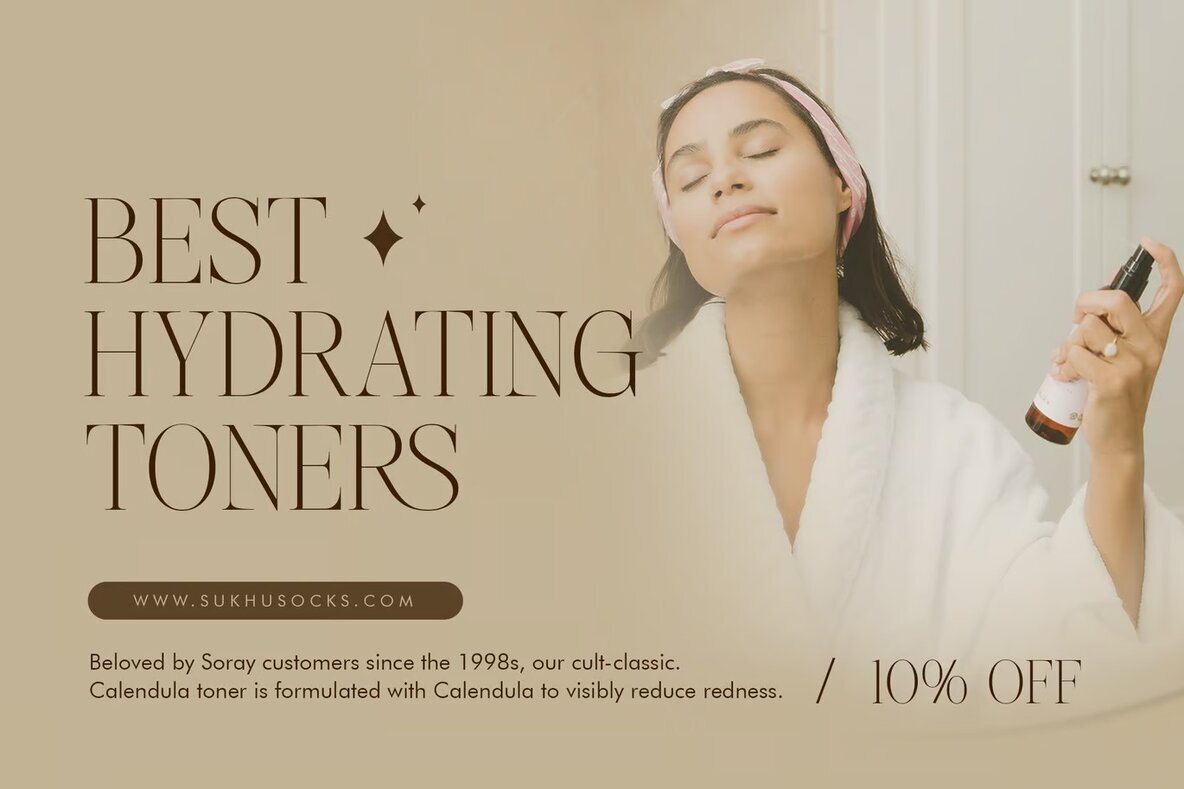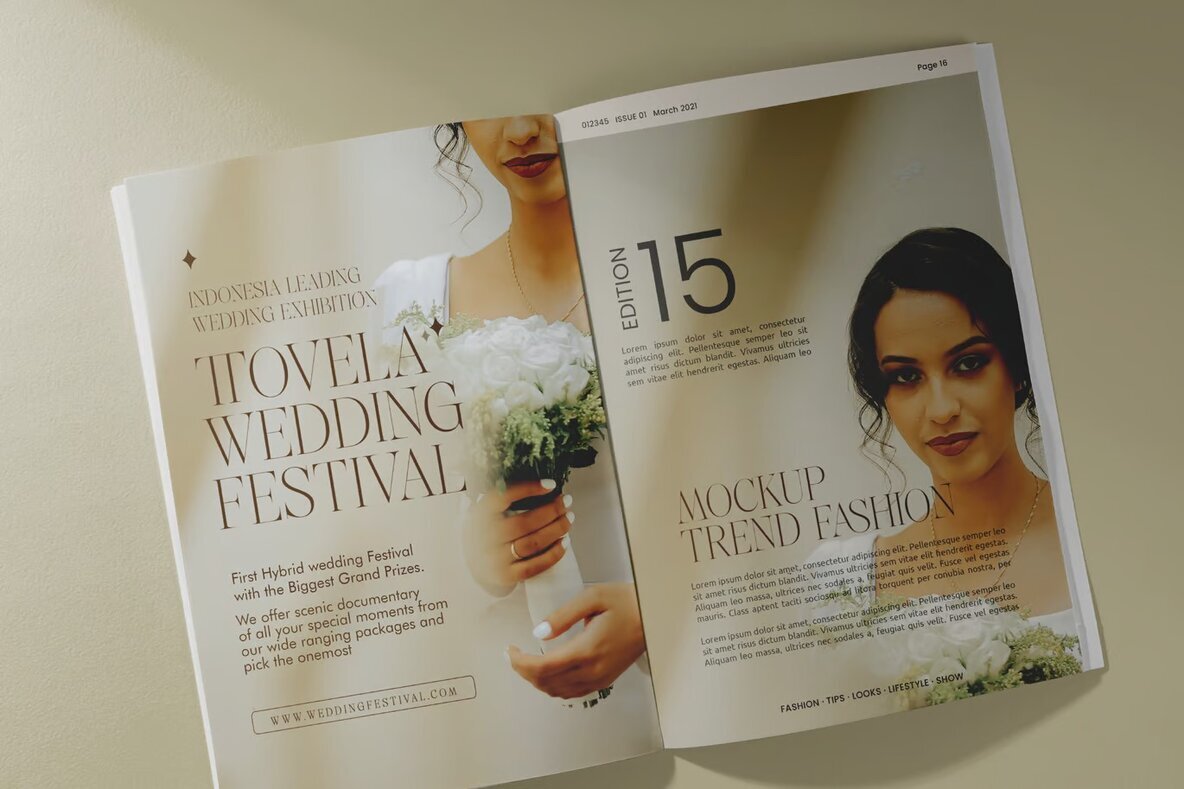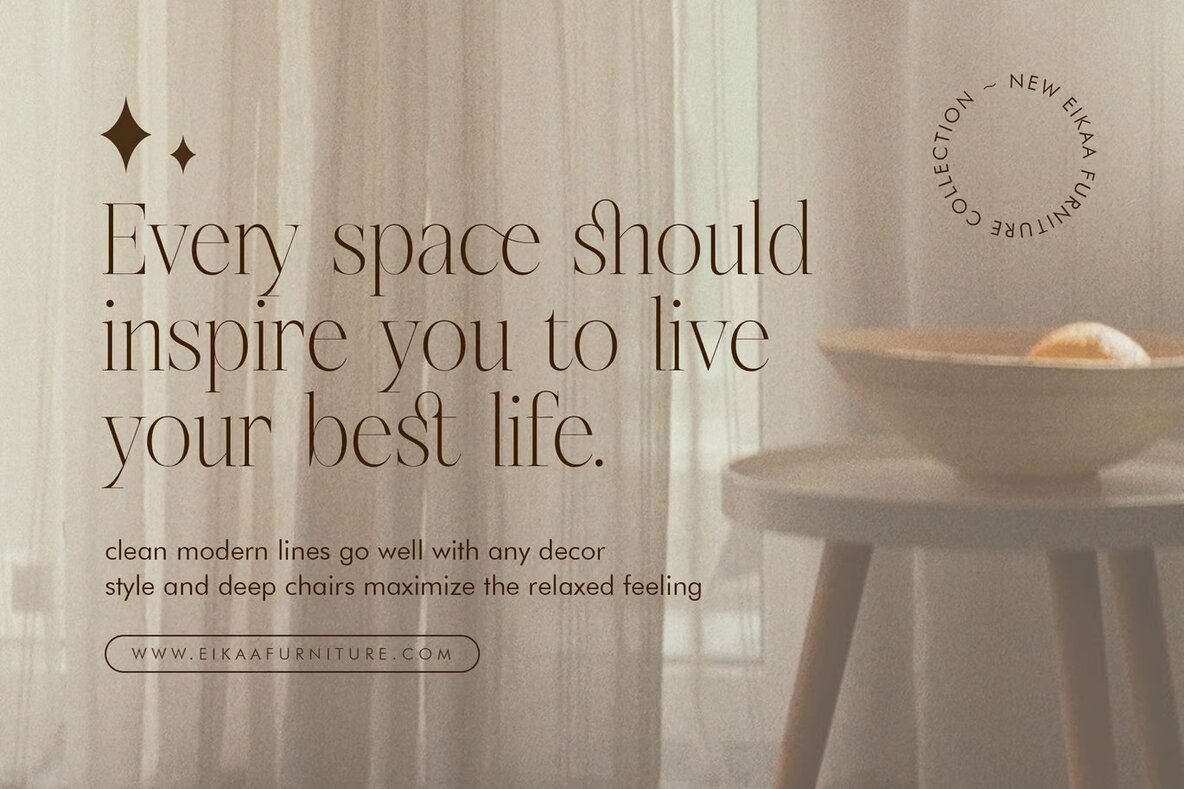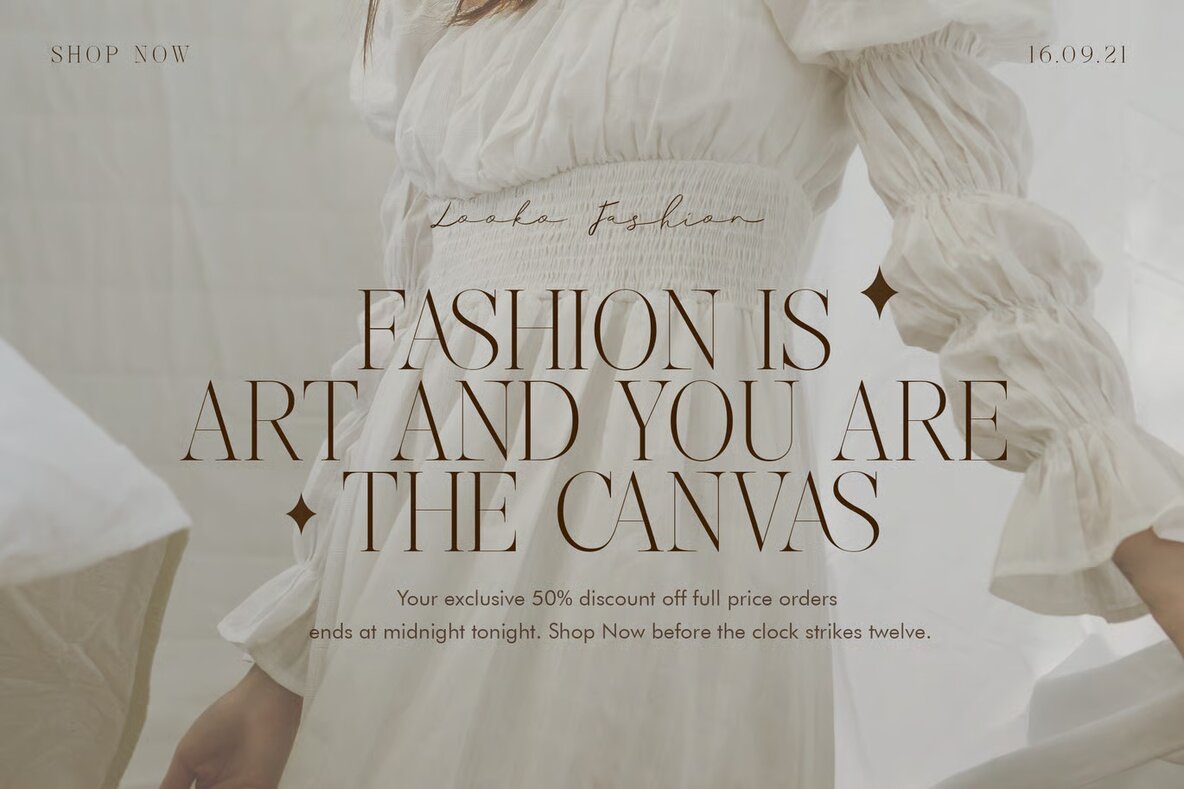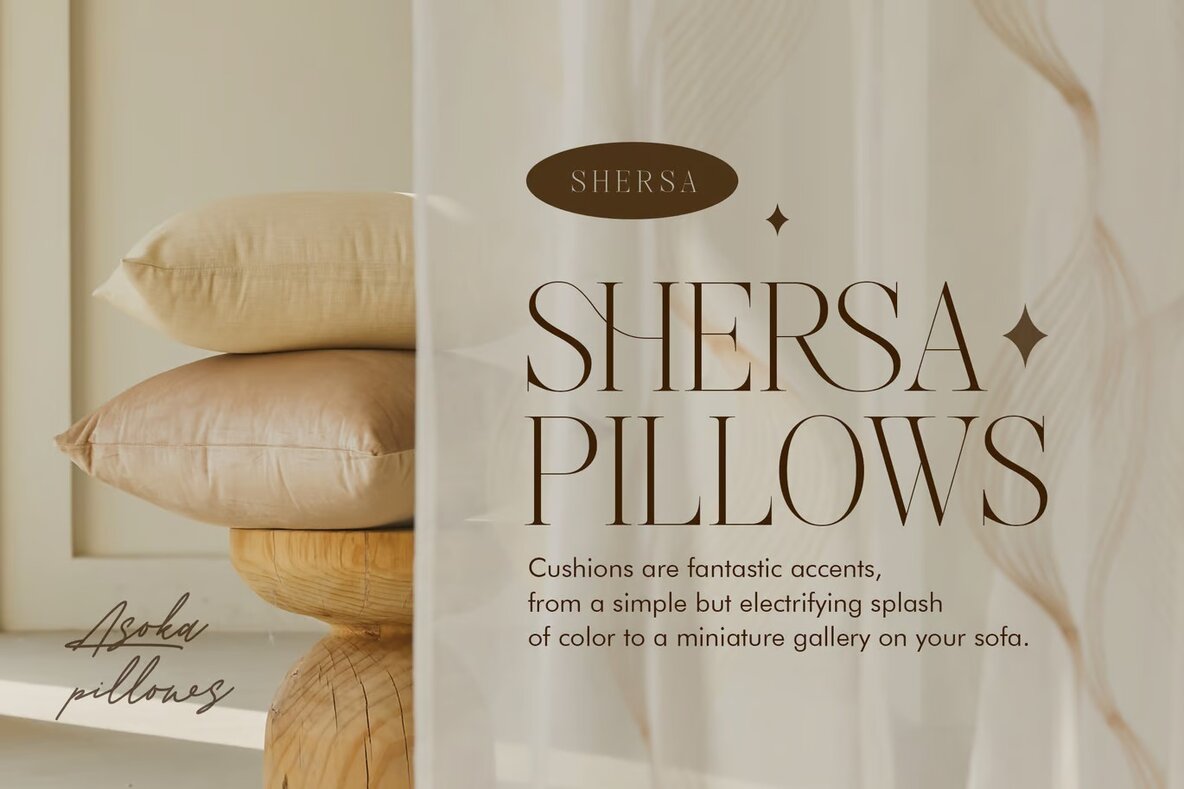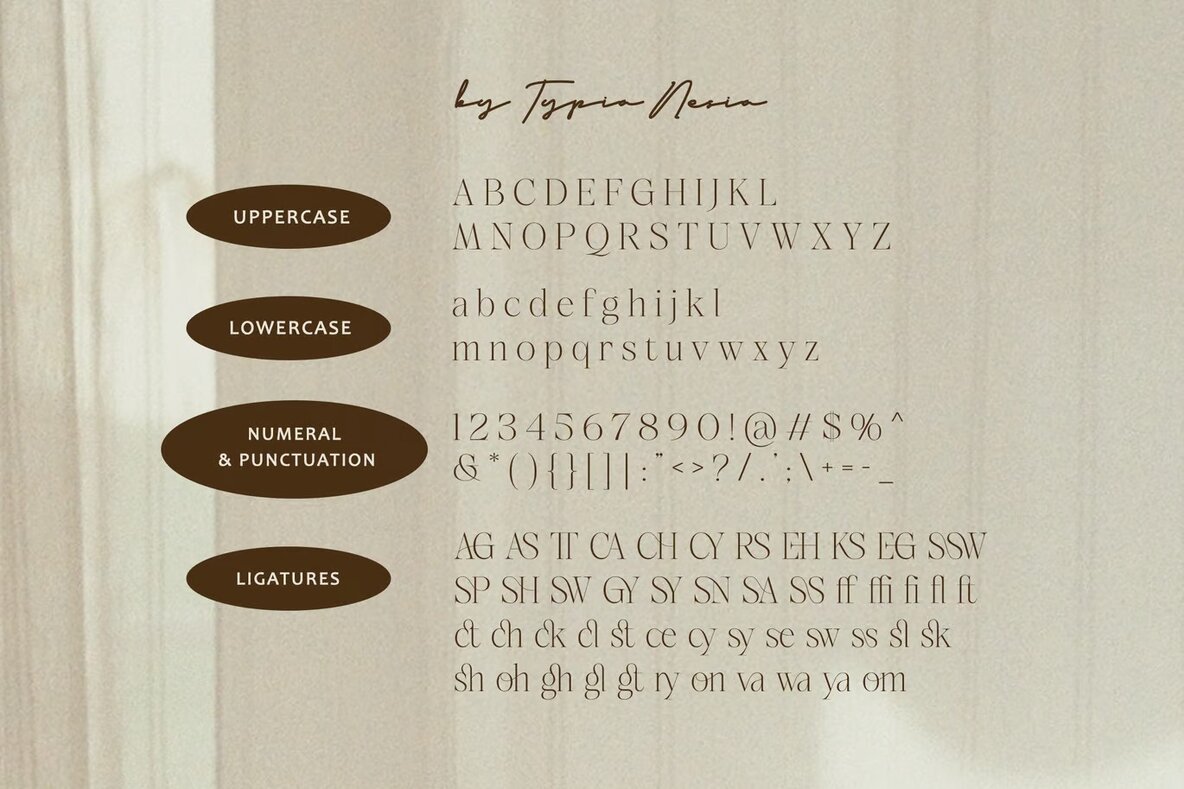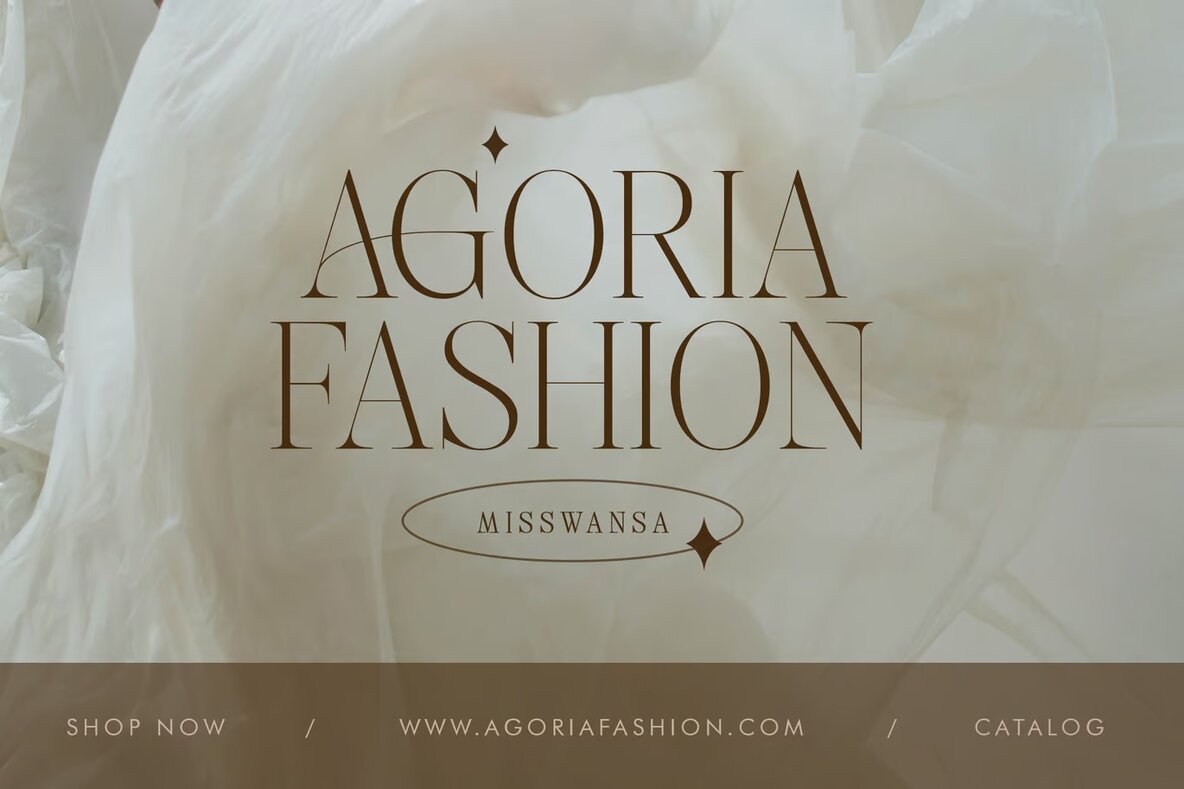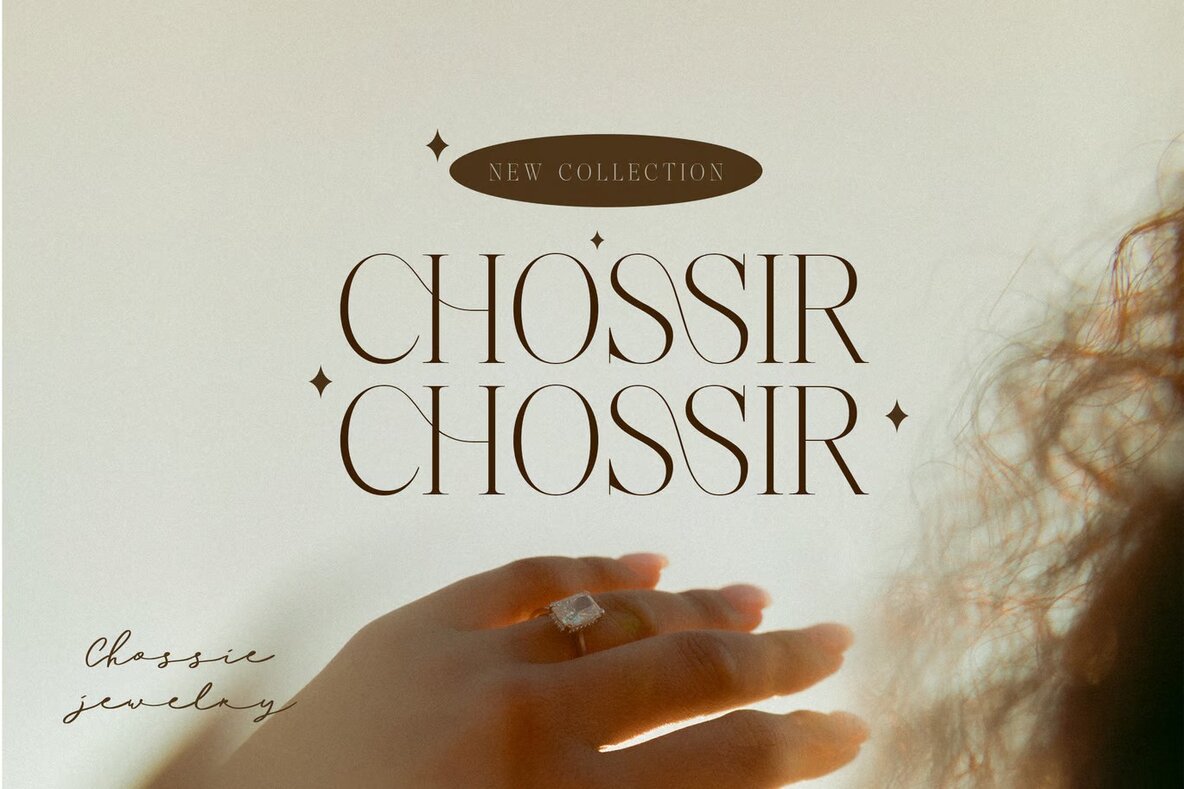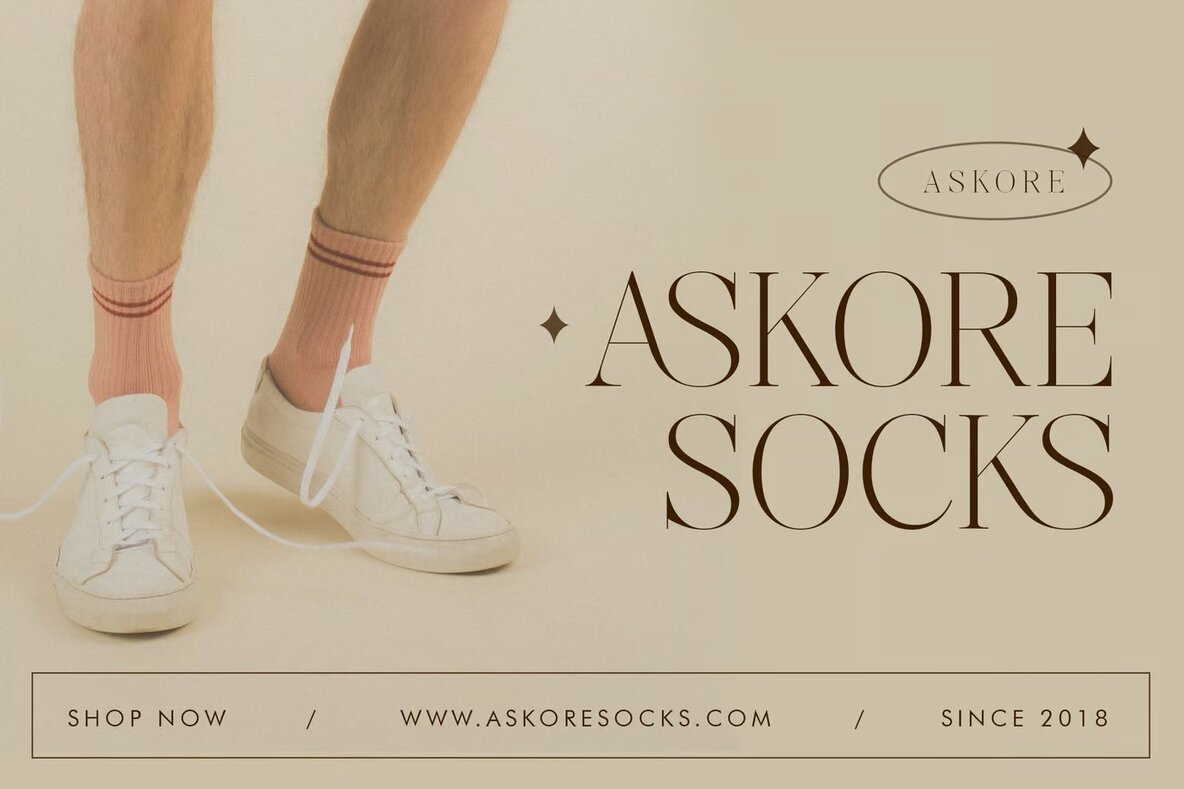
MIsswansa Font
Misswansa Regular
Misswansa is a modern ligature display light serif that effortlessly blends elegance and versatility. Its vintage-inspired design, coupled with contemporary nuances, makes it perfect for a wide array of creative projects. The font comes with a variety of alternates and ligatures, allowing designers to craft unique and visually appealing typography compositions.
Ideal for logo and branding projects, modern advertising, retro and vintage-themed designs, Misswansa is also well-suited for holiday and travel-related graphics. Its stylistic elements make it a great choice for fashion and music visuals, animation or movie titles, and poster quotes. Additionally, it shines on book and fantasy novel covers, editorial layouts, websites, blogs, and various card designs.